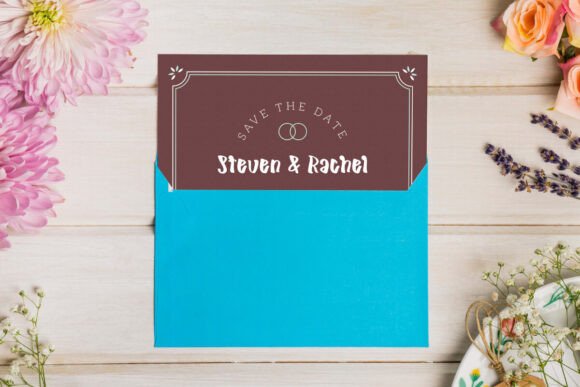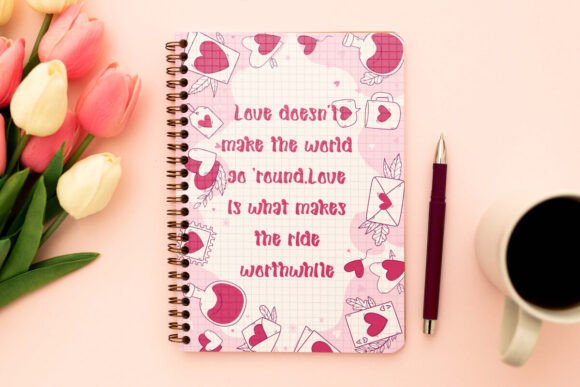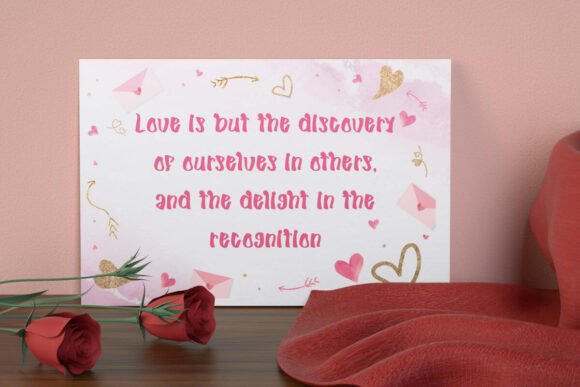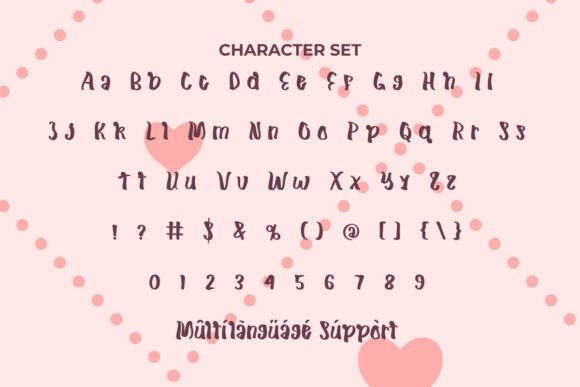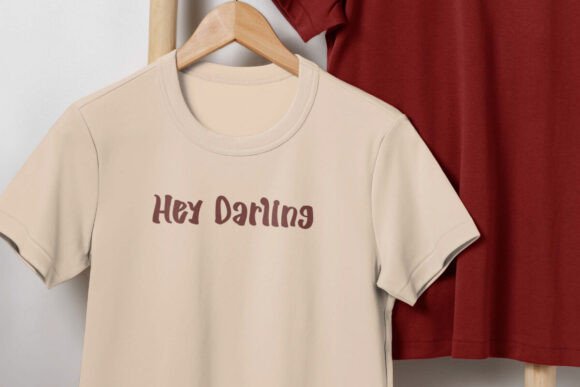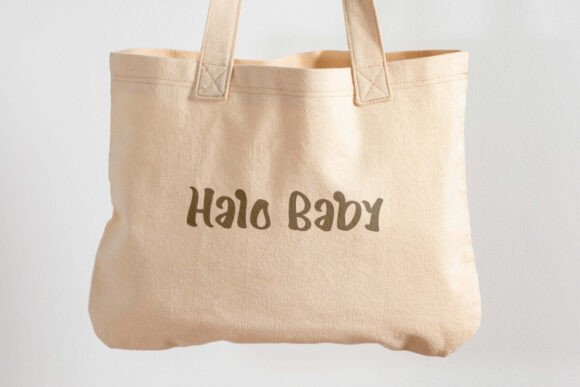
Introduction to Hey Darling Font
Have you ever stared at a blank page, desperately searching for the perfect font to bring your creative project to life? You know, that moment when the cursor on your screen seems to mock you, daring you to make a move? It’s like being stuck in a design limbo, where inspiration is just out of reach. Well, we’ve got some good news for you – your search for the perfect font is over, thanks to the adorable Hey Darling Font.
This lovely cartoon handwritten font is not just a pretty face; it’s a design resource that’s packed with personality and charm. With its funny romantic theme, it’s the perfect addition to any design that needs an adorable look. Whether you’re working on an advertisement, a bakery logo, or a wedding invitation, the Hey Darling Font is sure to bring a touch of whimsy and romance to your project.
Key Features of Hey Darling Font
- Includes a range of characters and glyphs for comprehensive language support
- Perfect for designers, artists, and writers seeking a unique and stylish font for their next project
Honest Review: Hey Darling Font
As a designer, I’m always on the lookout for high-quality design resources to elevate my creative projects. The Hey Darling Font is one such find that has caught my attention.
What works well for me is the Hey Darling Font’s elegant and feminine aesthetic. ✨ It’s perfect for designs that require a touch of sophistication and whimsy. The font is available for free download, making it an excellent addition to any design resource collection.
- Perfect for creative projects that require a feminine touch
However, there are some limitations to consider. ⚠️ The font doesn’t have a transparent background option, which may limit its use in certain design scenarios. Additionally, the font’s versatility may be restricted to specific design styles.
Overall, I’m impressed with the Hey Darling Font’s quality and design. While it may have some limitations, it’s a valuable addition to any designer’s toolkit. I’d recommend it for creative projects that require a high-quality, feminine aesthetic.
The Hey Darling Font is a high-quality, free download design resource ideal for creative projects. With a transparent background, this font adds a touch of elegance to any design.
Getting the Most Out of Hey Darling Font
To get the most out of the Hey Darling Font, use it in conjunction with other design resources, experiment with different font sizes and colors, and pay attention to the transparent background for a seamless design.
The Hey Darling Font is ideal for wedding invitations, baby shower invitations, and other creative projects where a touch of elegance is desired.